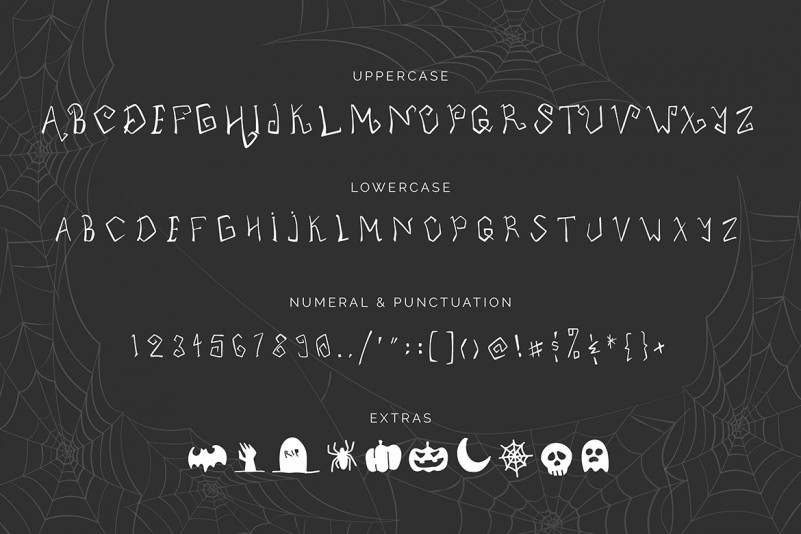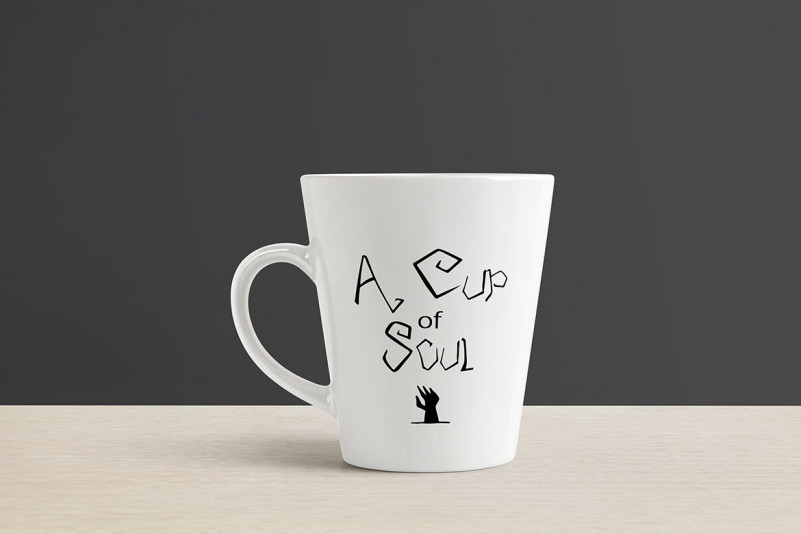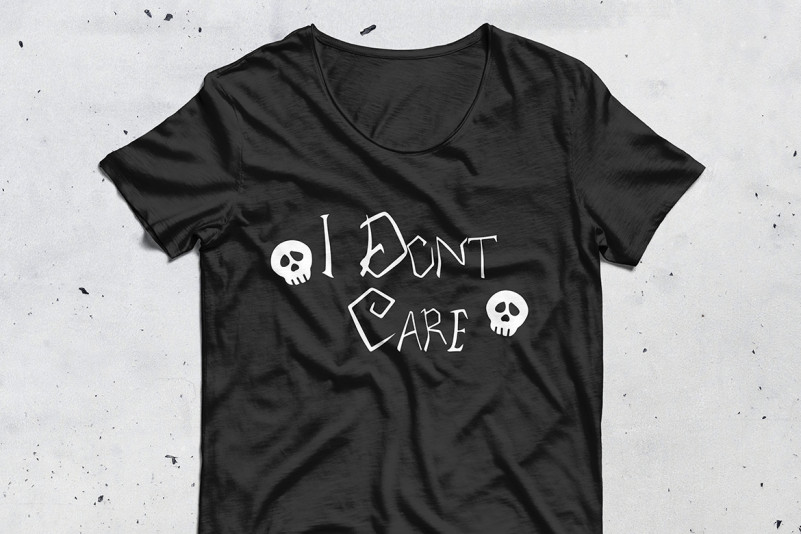
Tarantula Horror Font
Nothing for arachnophobes: Inspired by spiders and cobwebs, Tarantula Horror Font is a weird and thin Halloween-themed display font that will add a quirky feel to any craft.